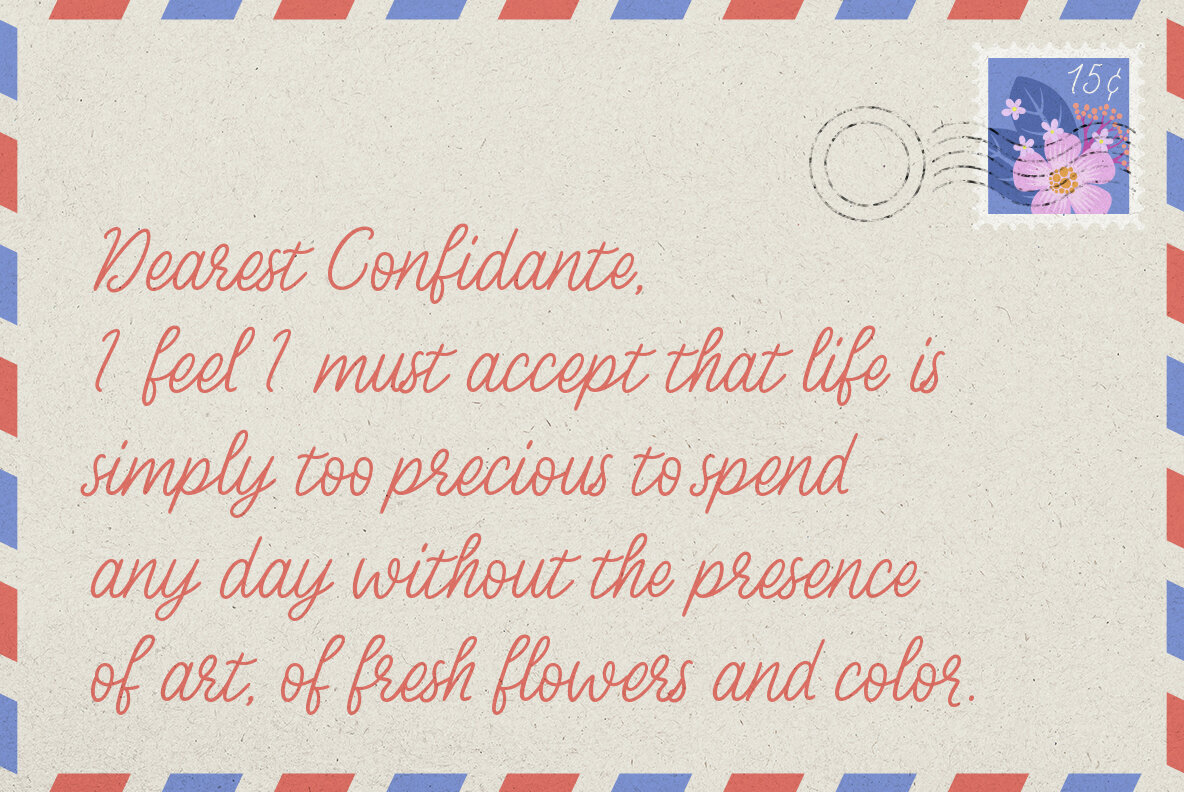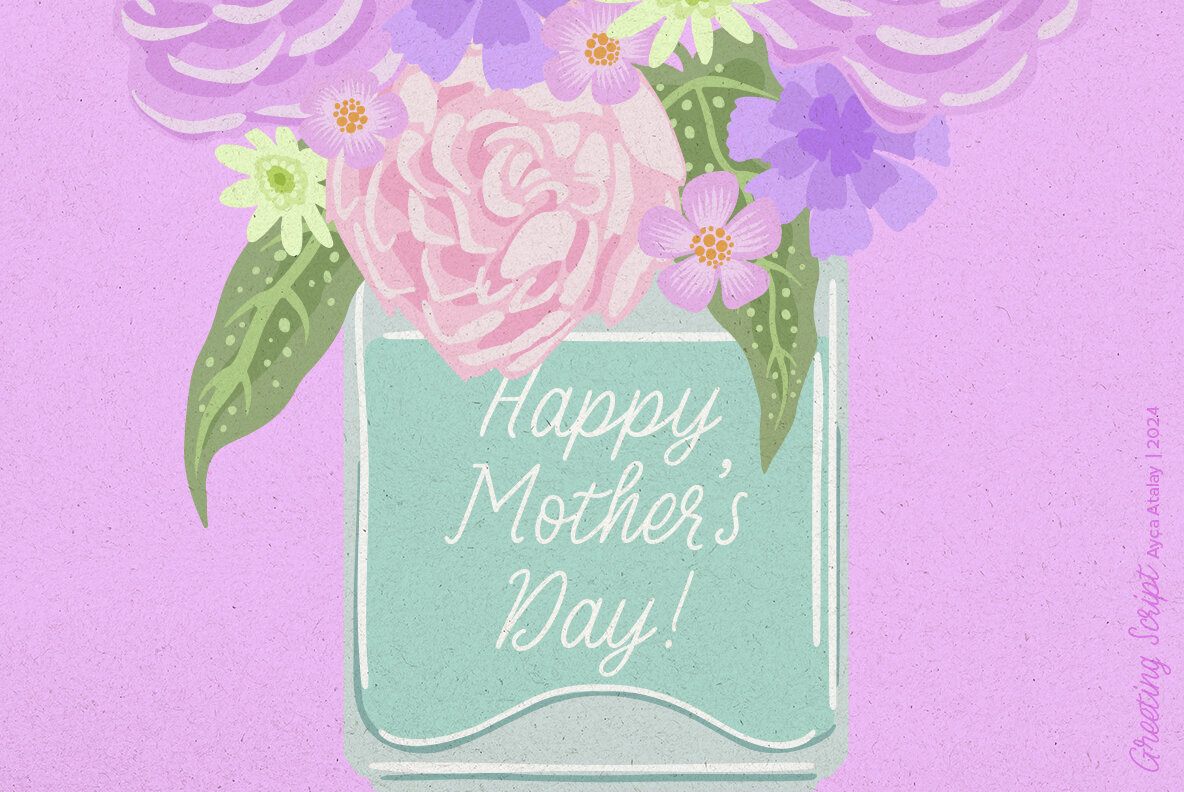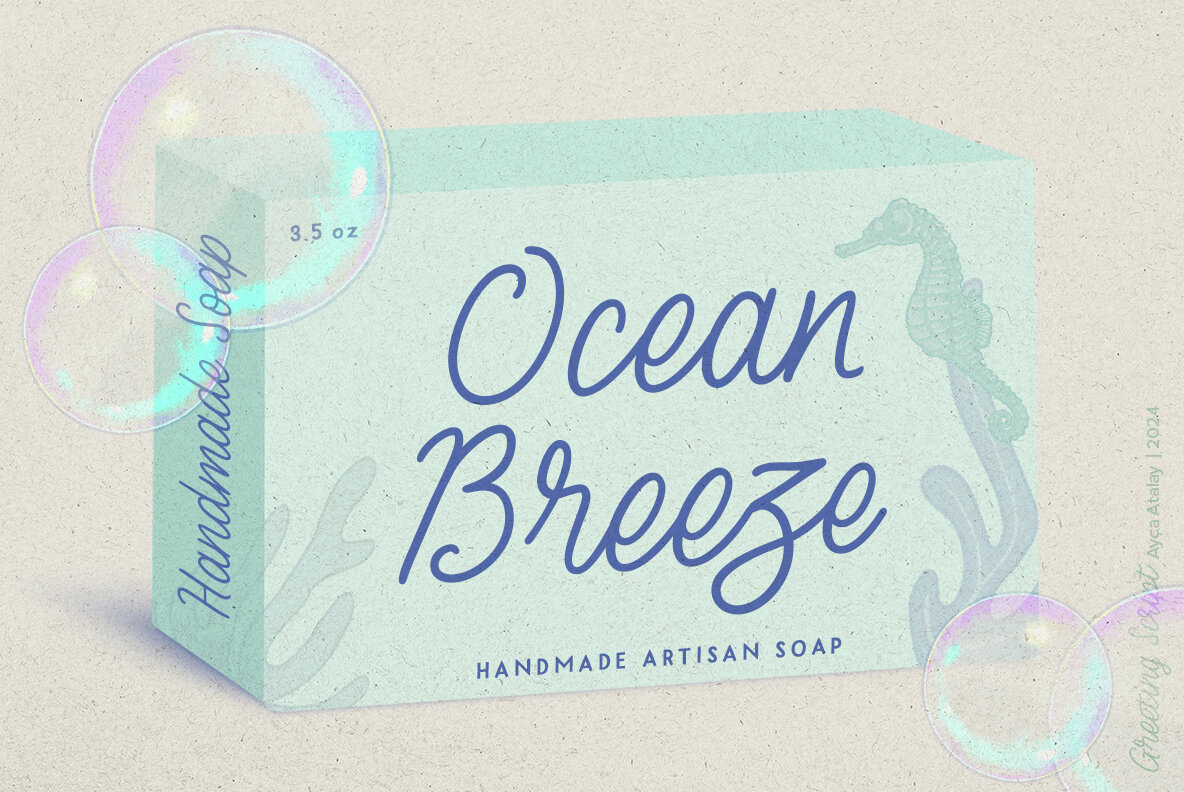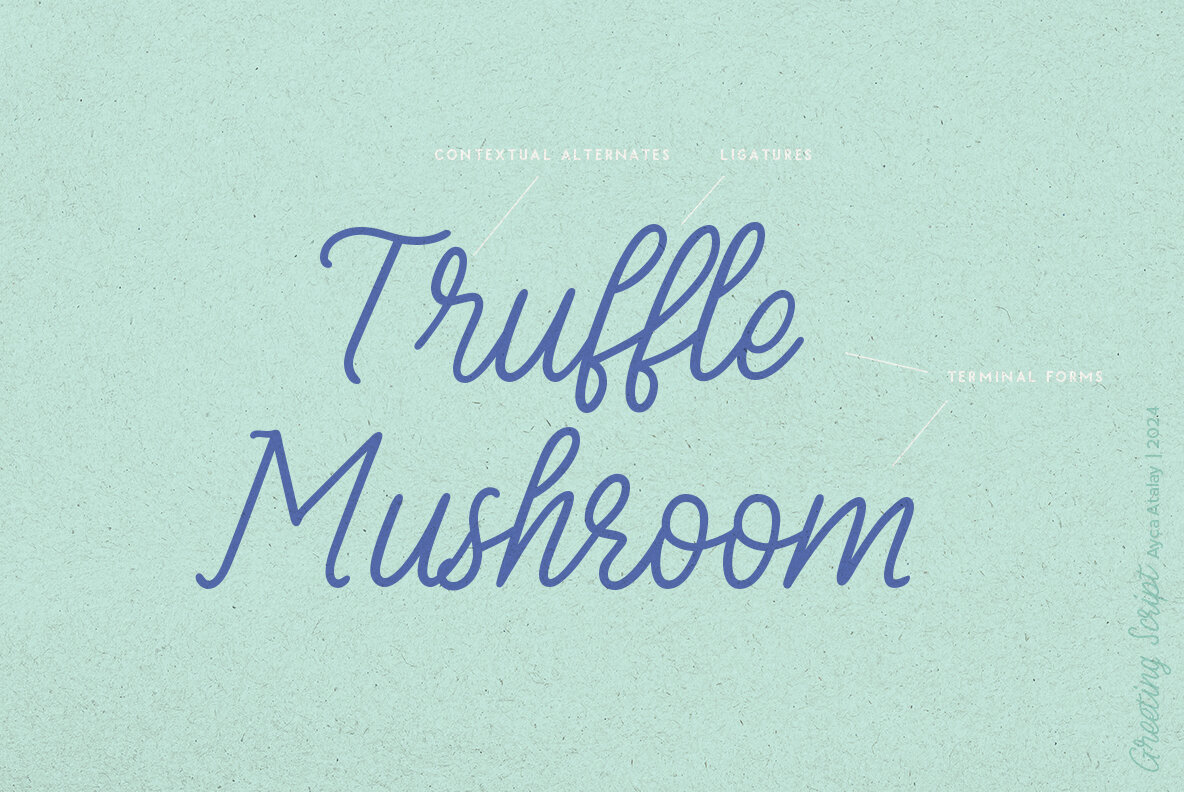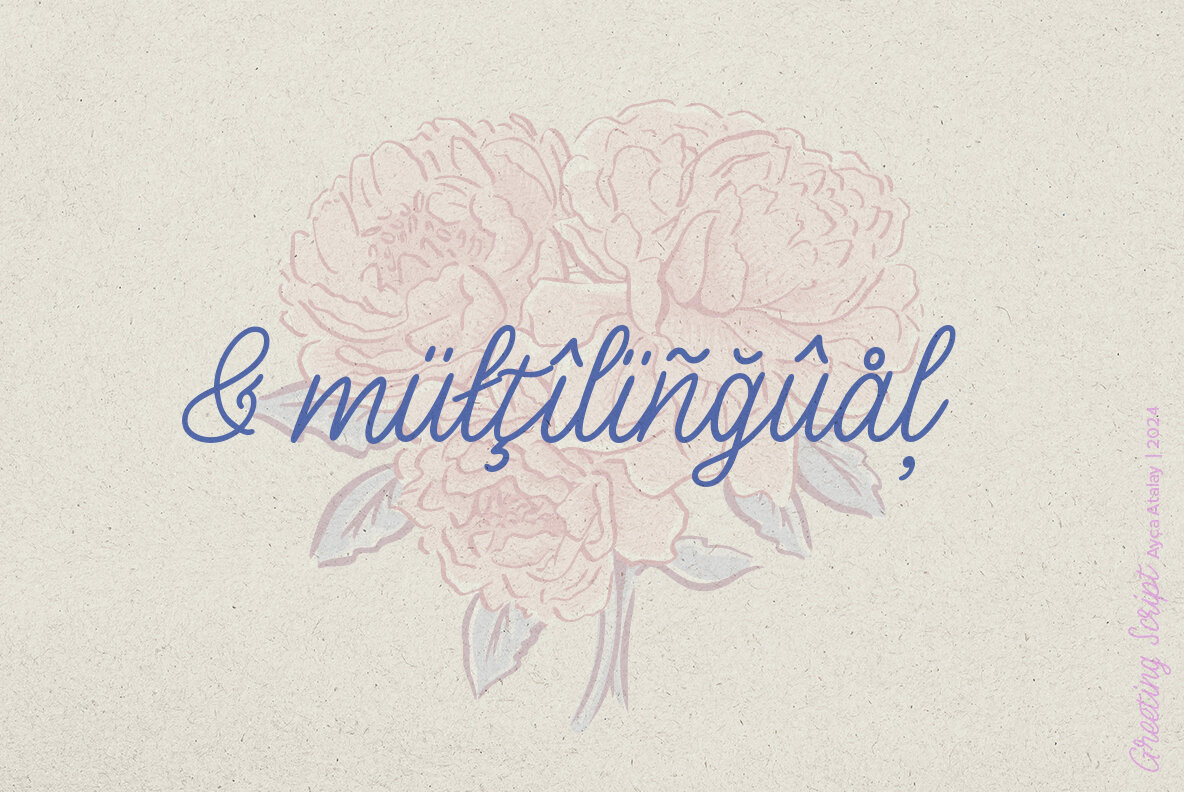
Greeting Script: Hand Lettered Script Font
Greeting Script is a charming and tidy hand-lettered script font. Ideal for illustrations, it maintains its hand-drawn quality while ensuring legibility and neatness.
• Uppercase and lowercase letters
• Numerals and punctuation
• Ligatures
• Contextual alternates and terminal forms
• Multilingual support